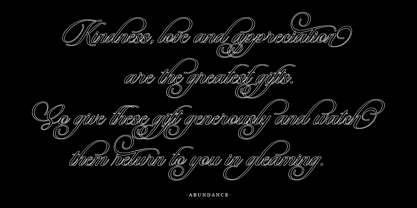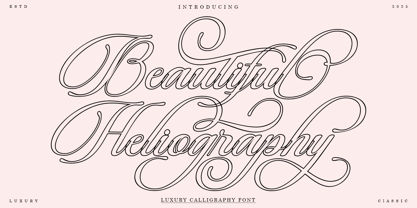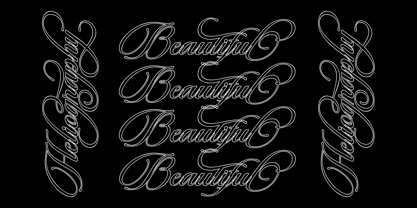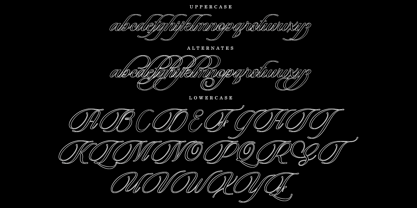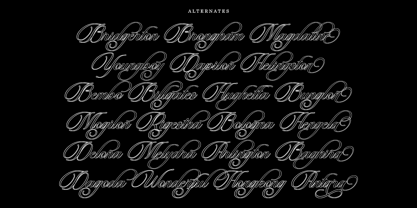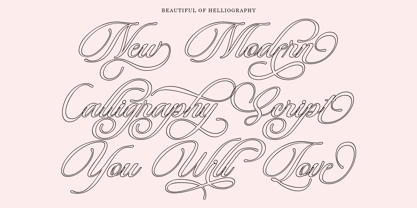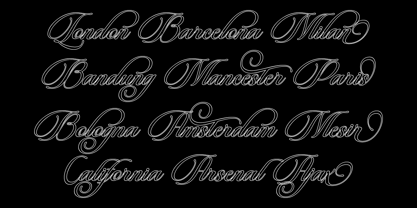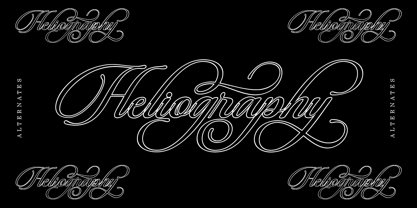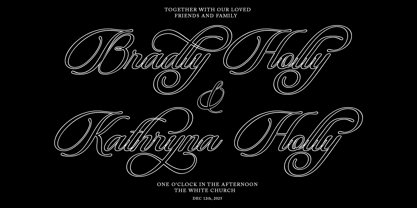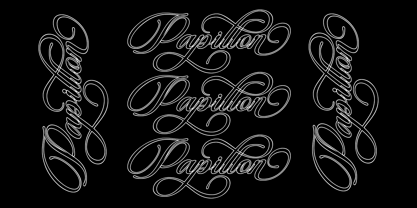
Beautiful Heliography Outline
by Hrz Studio
The Beautiful Heliography Outline Font Family was designed by Has Rizal and published by Hrz Studio. Beautiful Heliography Outline contains 1 styles. More about this family
Beautiful Heliography Outline is a modern classic style script font inspired by classic handwriting in books. This font comes with style sets, Contextual Alternatives, ligatures and also multi-language support which adds aesthetics that make your work even more attractive.
FEATURE:
Designers: Has Rizal
Foundry: Hrz Studio